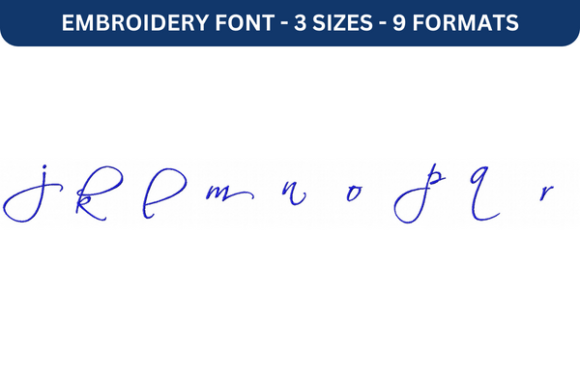
Scriptina Font Lower J to R Review
As an embroidery designer with years of experience in custom apparel and boutique brand projects, I’ve seen countless machine embroidery designs come and go. But when I stumbled upon the Scriptina Font Lower J to R, I knew it had potential. This is a high-quality embroidery font that will help you personalize your designs. Use this embroidery font to write names, dates, or quotes on any fabric you wish. This machine embroidery design com.
First Impressions: A Versatile Script Font
The Scriptina Font Lower J to R immediately caught my eye for its elegant yet approachable visual personality. It has a soft, flowing script that feels both modern and timeless. The stitching mood is delicate but confident—perfect for adding a touch of sophistication without overpowering the garment. The detail level is impressive, with consistent line weight and smooth curves that translate well into machine embroidery.
This font has a decorative strength that makes it ideal for personalized items. Whether you're working on a custom apparel project or a handmade product, the Scriptina font adds a unique flair that stands out. It’s not overly ornate, which means it can blend seamlessly into a variety of styles—from casual to more refined looks.
Practical Applications Across Apparel
When considering how the Scriptina Font Lower J to R would perform on different types of garments, I envision it working beautifully on neutral sweatshirts, pastel hoodies, and dark apparel. Its clean lines make it adaptable to both light and dark fabrics, and it holds up well on oversized garments, t-shirts, denim jackets, and even tote bags.
For a sweatshirt embroidery or hoodie design, placing the font on the chest or sleeve could add a subtle yet stylish touch. On the back, it could serve as a bold statement piece, especially if paired with a minimalist layout. For tote bag design, the font’s fluidity would look great on curved surfaces, making it a versatile choice for boutique merchandise.
Where to Use the Design Carefully
While the Scriptina Font Lower J to R is highly versatile, there are some areas where caution is needed. For instance, small chest placement may require careful sizing to avoid overcrowding. In dense stitch areas, the font might appear too busy, so spacing and scale are important considerations.
On stretchy fabrics like fleece or ribbed materials, the font should hold up well if proper stabilizer is used. Dark garments benefit from high-contrast thread colors, and tiny lettering needs to be tested on similar fabric textures to ensure clarity. Curved surfaces also require attention to ensure the font aligns properly and maintains its shape.
Impact on Brand Identity and Customer Engagement
Using the Scriptina Font Lower J to R can significantly enhance the value of your custom apparel. It adds a personal touch that resonates with customers, helping to build trust and recognition for your boutique brand. When used consistently across your product line, it creates a cohesive visual identity that strengthens your commercial embroidery offerings.
For Etsy sellers and small shop products, the font can elevate the professionalism of your listings. A well-executed printable mockup or social media graphic featuring the Scriptina font can attract more attention and increase customer engagement. It also supports a polished finished product that stands out in a competitive market.
Design Tips and Practical Notes
Before finalizing any project with the Scriptina Font Lower J to R, I recommend testing it on scrap fabric to see how it looks in real-world conditions. Pay close attention to stitch density and ensure the hoop size accommodates the design without distortion. Also, check the thread color contrast against your chosen fabric to avoid fading or blending issues.
It’s also wise to review the creative fabrica embroidery file details and licensing before using it for commercial purposes. Confirming these aspects ensures you’re fully prepared for production and avoids any last-minute surprises.
Conclusion: A Thoughtful Addition to Your Embroidery Kit
The Scriptina Font Lower J to R is a thoughtful addition to any embroidery designer’s toolkit. Its balance of elegance and versatility makes it suitable for a wide range of embroidery projects, from sweatshirt embroidery to lifestyle product photos. Whether you're creating digital embroidery files for sale or designing for a handmade business, this font offers a refined aesthetic that can elevate your work.